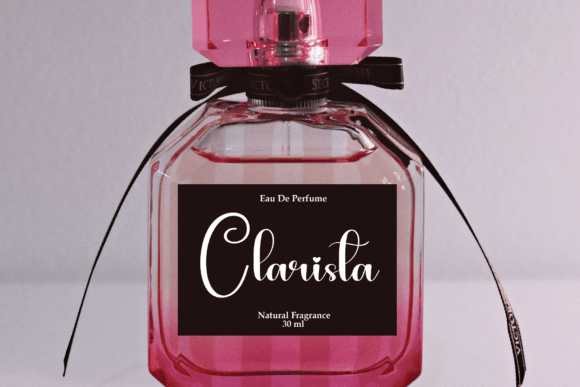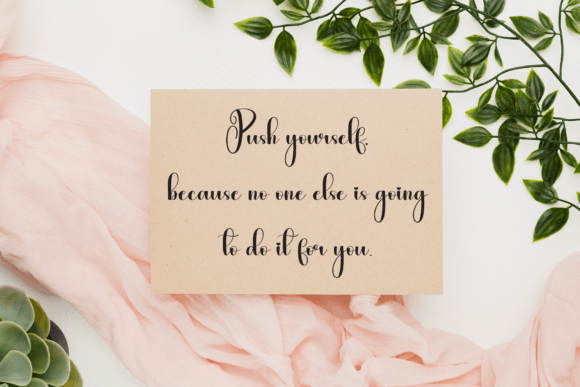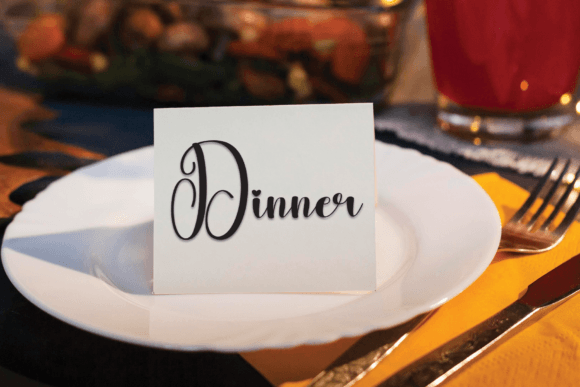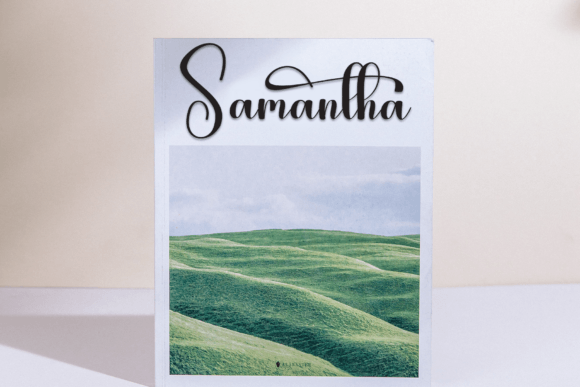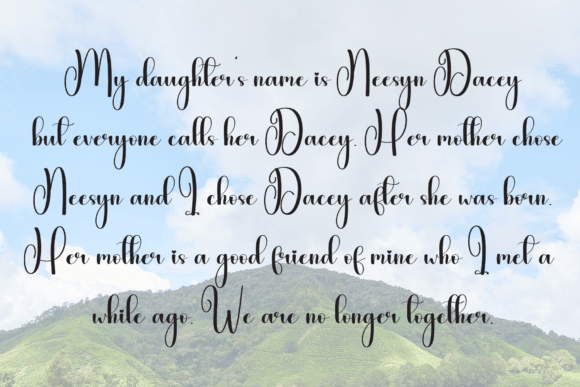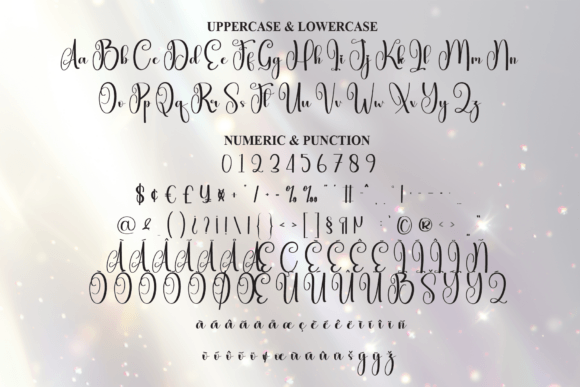
The Elusive Perfect Font: My Encounter with Brighteen
Ah, the quest for the perfect font. It’s a journey every designer, crafter, and creative hobbyist can relate to. I recall working on a project, pouring my heart and soul into it, but feeling like something was off. The design was beautiful, but it lacked a certain je ne sais quoi. That’s when I realized the issue wasn’t the design itself, but the font I was using. It was then that I stumbled upon Brighteen, a stylish handwritten script font that completely transformed my project.
First Impressions: A Love Affair with Brighteen
Brighteen is more than just a font; it’s an experience. Its fluid strokes and natural flow create a captivating, sophisticated look that’s perfect for adding a personal touch to invitations, branding, or social media. Here are a few things I love about Brighteen:
• ✨ Elegant and charming, perfect for projects that require a touch of sophistication
• ✅ Fluid strokes and natural flow create a beautiful, handwritten feel
• 💫 Perfect for designs that need a personal touch, such as invitations, branding, or social media posts
While Brighteen is an amazing font, it’s not without its quirks. Here are a few things to keep in mind:
• ⚠️ Some users may find the font a bit too ornate for certain projects
• 🤔 Limited use of uppercase letters, which may not be ideal for all designs
The Story Behind Brighteen
Brighteen was designed with the intention of creating a font that exudes elegance and charm. The designer, inspired by the beauty of handwritten scripts, aimed to create a font that’s perfect for designs that require a personal touch. With its fluid strokes and natural flow, Brighteen is sure to captivate your audience and add a touch of sophistication to any design.
What is Brighteen font? Brighteen is a stylish handwritten script font that exudes elegance and charm.
What is Brighteen best used for? Brighteen is perfect for designs that require a personal touch, such as invitations, branding, or social media posts.